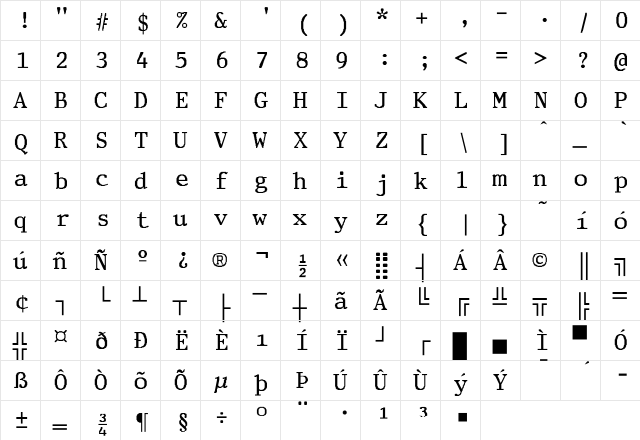
PrestigeEliteBold-Bold Regular
Design Context for PrestigeEliteBold-Bold Typeface
PrestigeEliteBold-Bold is a composed and adaptable typeface that performs quietly and consistently across a wide range of design contexts. The heavy weight commands attention and anchors typographic hierarchies.